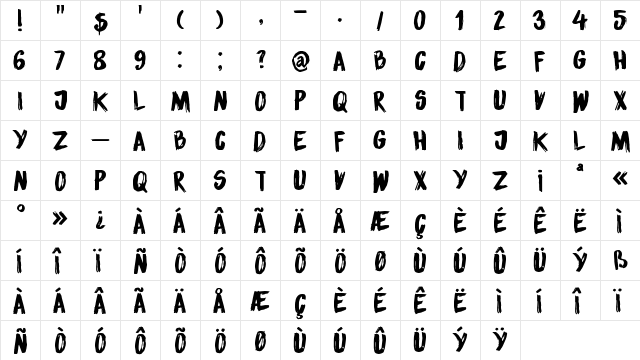
DK Sensory Overload Regular
| Foundry | David Kerkhoff |
| Designer | David Kerkhoff |
Design Context for DK Sensory Overload Typeface
DK Sensory Overload is a composed and adaptable typeface that performs quietly and consistently across a wide range of design contexts.